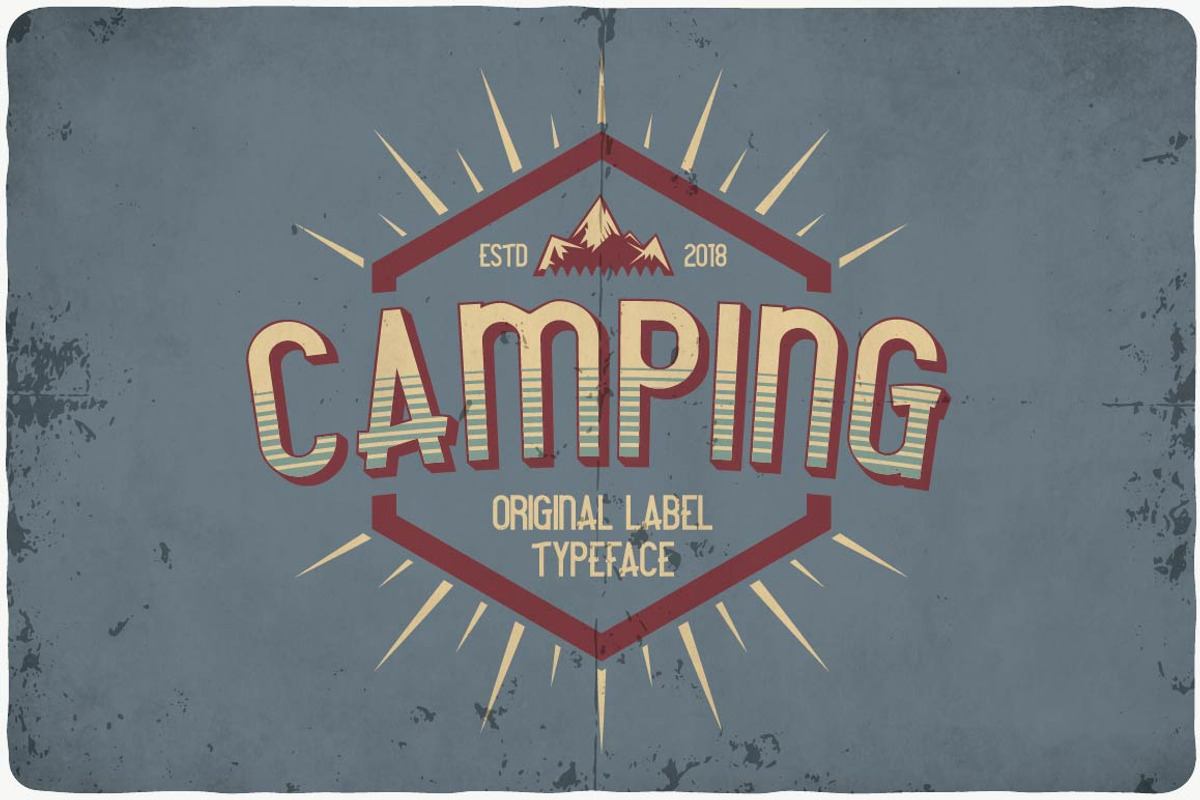
Camping Typeface Free Download is a rugged, nature-inspired font that captures the spirit of outdoor adventure. Perfect for travel posters, camping gear branding, event flyers, and rustic-themed designs, this typeface brings a handcrafted, earthy vibe to your creative work. With bold lines and a slightly vintage feel, it’s ideal for projects that celebrate the great outdoors.
Using the Camping Typeface Free Download lets you instantly evoke feelings of exploration, wilderness, and freedom. Whether you're designing for a hiking blog, outdoor apparel, or seasonal event, this font adds authenticity and character. Its strong presence ensures readability while maintaining a playful, back-to-nature aesthetic.